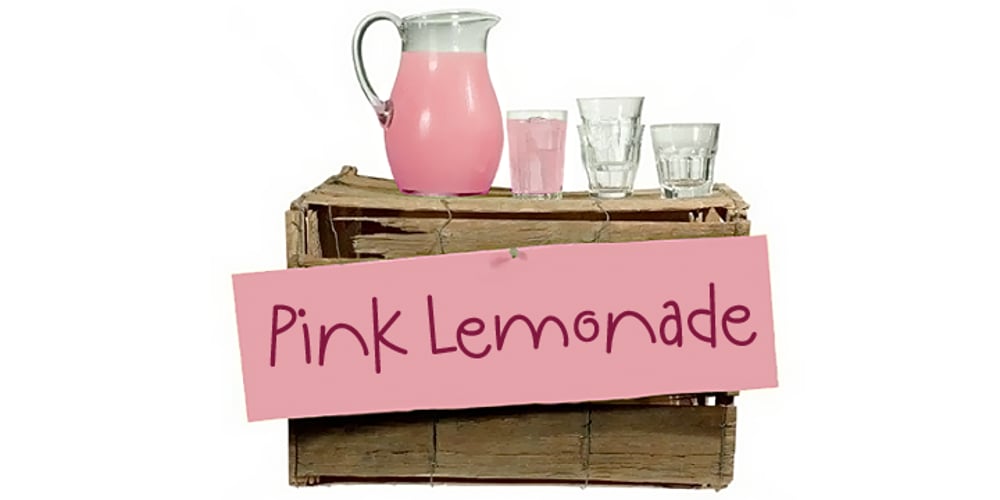
Pink Lemonade
Pink Lemonade font
Pink Lemonade Font Family was designed by Ronna Penner and published by Typadelic. Pink Lemonade contains 1 styles and family package options. Pink Lemonade (formerly called Fresh Paint) is just like cool, tart lemonade on a hot summer’s day…refreshing! With varying widths and irregular sizes of the lowercase letters, Pink Lemonade lends a bouncy rhythm to text. Works very well for scrapbooking, invitations, children’s books, recipe books, titling, display purposes, etc.